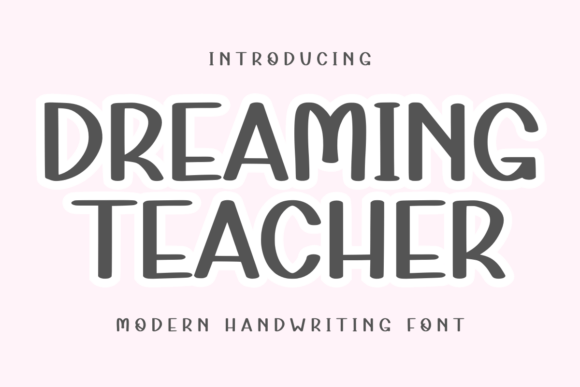
Have you ever been brainstorming ideas for a new design project and suddenly, the perfect font pops into your mind? For many designers, this moment of inspiration can make all the difference in bringing their vision to life. And for those looking to add a touch of warmth and personality to their work, the Dreaming Teacher Font is a game-changer.
This casual handwritten font is designed to capture the charm of authentic handwriting with a modern finish, making it perfect for a wide range of applications, from quotes and branding to packaging and social media posts. With its smooth strokes, natural curves, and well-balanced letterforms, the Dreaming Teacher Font delivers both readability and charm, making it a valuable addition to any designer’s toolkit.
Whether you’re a seasoned pro or just starting out, the Dreaming Teacher Font is sure to bring a unique touch to your designs, setting them apart from the crowd and making them truly unforgettable.
Dreaming Teacher Font Key Features
- Unique Characteristics: The Dreaming Teacher font features a unique, hand-drawn design with subtle imperfections, giving it a personal and human touch that sets it apart from more generic fonts.
Dreaming Teacher Font Review
I’ve had the chance to work with the Dreaming Teacher font, and I must say it’s a unique addition to any design project. ✨ The font’s playful and whimsical feel is perfect for creating a child-friendly atmosphere, and its versatility makes it suitable for a range of applications, from educational materials to children’s book covers.
Some of the things that work well about the Dreaming Teacher font include:
- Its wide range of character options, including uppercase and lowercase letters, numbers, and punctuation.
- The font’s ability to be customized with various font sizes and styles, allowing for a high degree of flexibility in design.
- ⚠️ The font may not be suitable for formal or professional applications, as its playful feel may come across as unprofessional.
- ⚠️ The font’s character set may not be as extensive as other fonts, which could limit its use in certain situations.
Overall, I think the Dreaming Teacher font is a great addition to any designer’s toolkit. While it may have some limitations, its unique feel and versatility make it a valuable resource for designers working on projects that require a playful, child-friendly atmosphere.
Tips for Getting the Most Out of the Dreaming Teacher Font
For a more dramatic effect, pair the Dreaming Teacher Font with a bold or cursive font.
Use the Dreaming Teacher Font for headings or titles to create a visually appealing contrast.
The Dreaming Teacher Font is ideal for:
- Education-related projects (e.g., posters, flyers, or infographics).
- Designing teacher resources or educational materials.
- Creating engaging presentations or reports